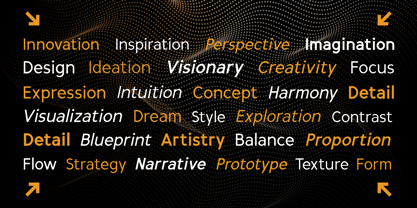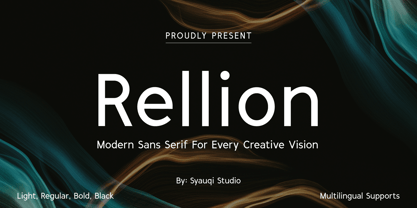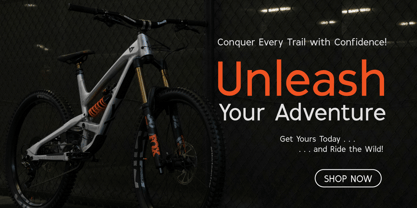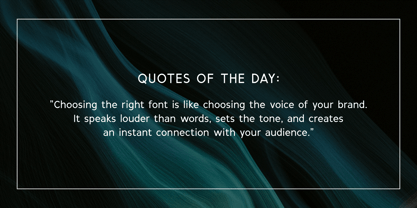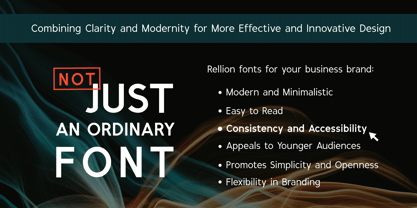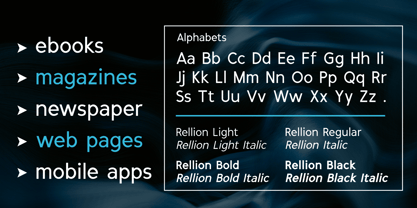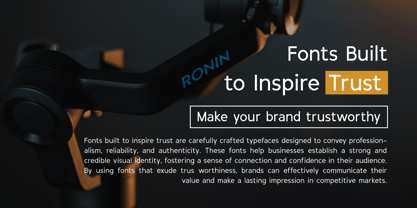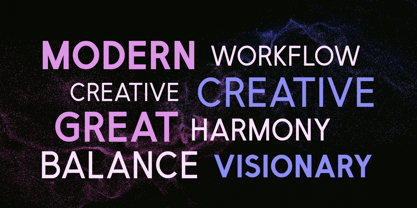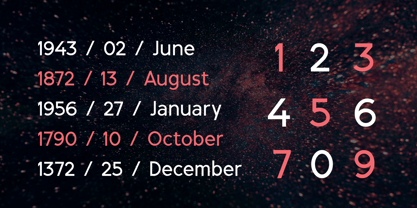
Rellion
by Syauqi Studio
The Rellion Font Family was designed by Muhammad Asroful Umam and published by Syauqi Studio. Rellion contains 8 styles and family package options. More about this family
Rellion - Modern Sans Serif Typeface for Creative Visions
Introducing Rellion, a meticulously crafted modern sans serif font that embodies sleek, sophisticated minimalism. Designed for designers, innovators, and brands who value clarity and style, Rellion brings versatility and contemporary elegance to every project. Whether you’re working on logos, websites, print designs, or branding materials, Rellion is the perfect typeface to elevate your creative vision.
Key Features:
• Modern Aesthetic: With clean lines and a balanced, geometric structure, Rellion exudes a contemporary charm that works effortlessly across a wide range of creative applications.
• Versatile & Legible: Designed with legibility in mind, Rellion ensures readability even in small sizes, making it ideal for both print and digital designs.
• Extensive Character Set: Rellion supports multiple languages, making it a versatile choice for global brands and projects.
• Stylish & Timeless: A perfect blend of modern design trends with a timeless appeal, ensuring your projects stay fresh and relevant.
• Customizable: Available in a range of weights, from light to bold, Rellion offers flexibility to suit a variety of design needs.
Why Choose Rellion?
• High-Quality Typography: Every letterform in Rellion is carefully designed with attention to detail, ensuring perfect harmony and consistency in your designs.
• Great for Branding: Ideal for businesses looking to create a strong, impactful identity, Rellion brings a polished and professional look to logos, websites, and promotional materials.
• Optimized for Digital & Print: Whether it’s for web design, social media graphics, or print ads, Rellion’s modern sans serif style adapts beautifully to any medium.
With Rellion, your creative possibilities are limitless. Elevate your work with this stylish, high-performance font that’s designed to meet the demands of today’s dynamic design landscape.
Designers: Muhammad Asroful Umam
Foundry: Syauqi Studio